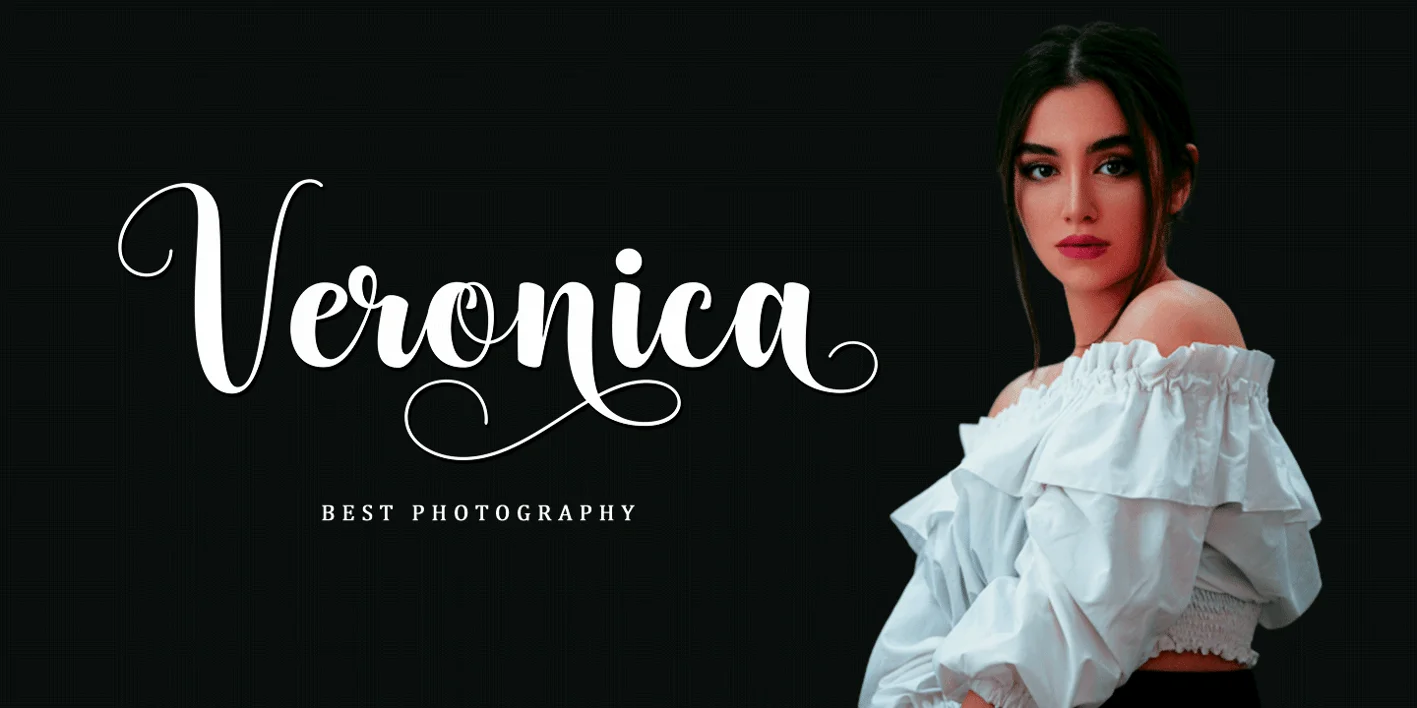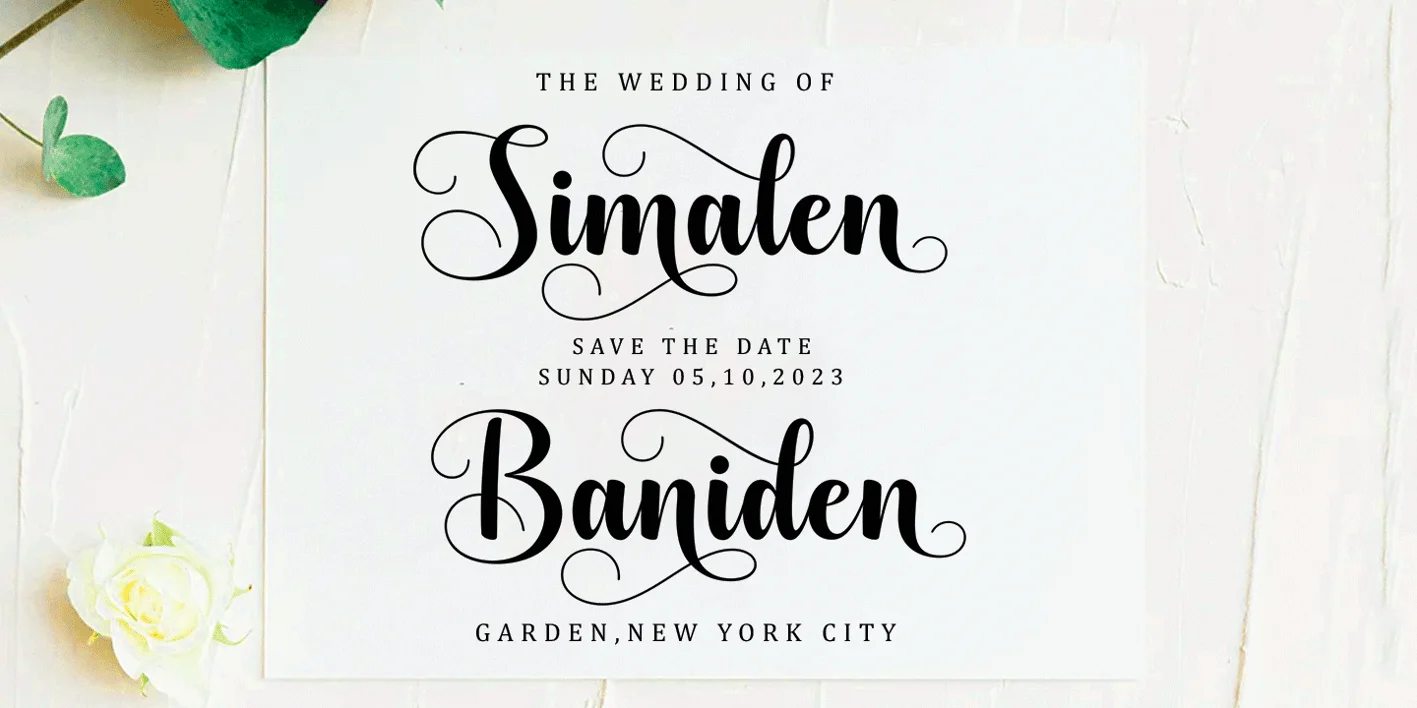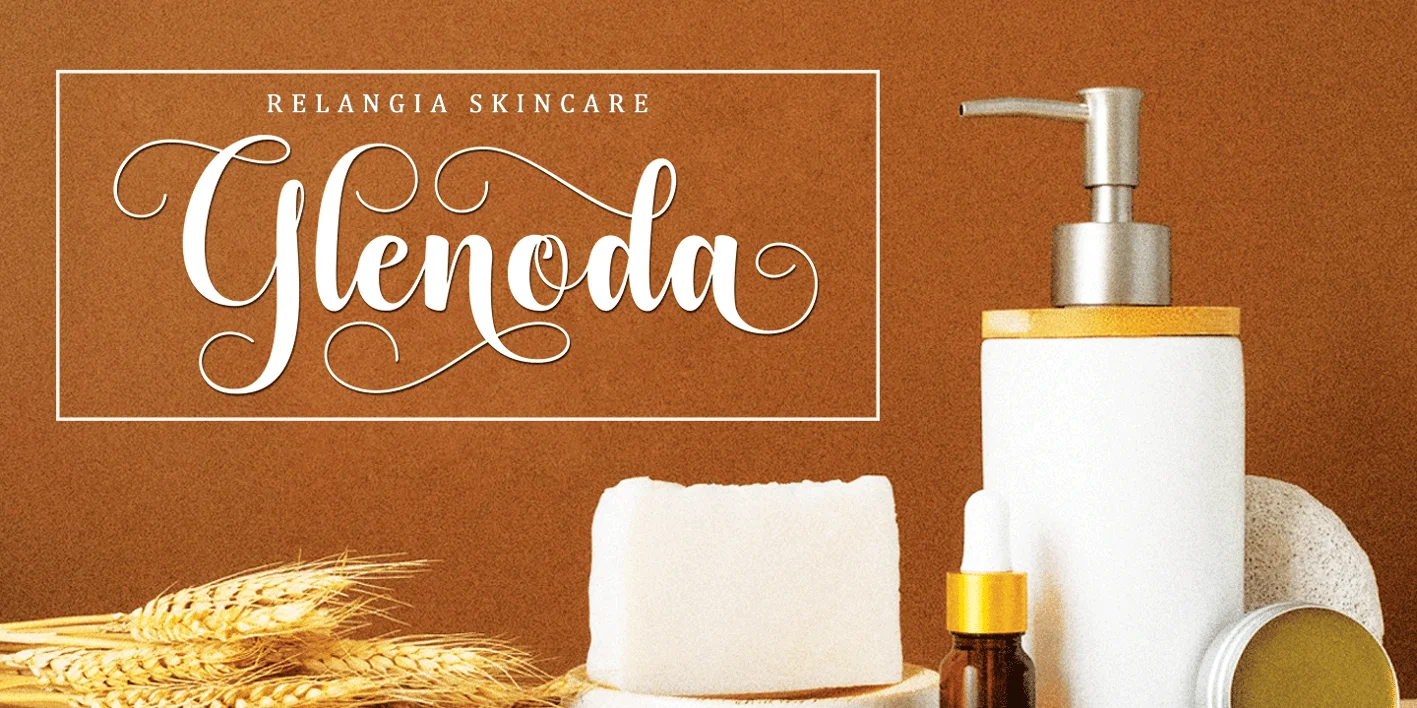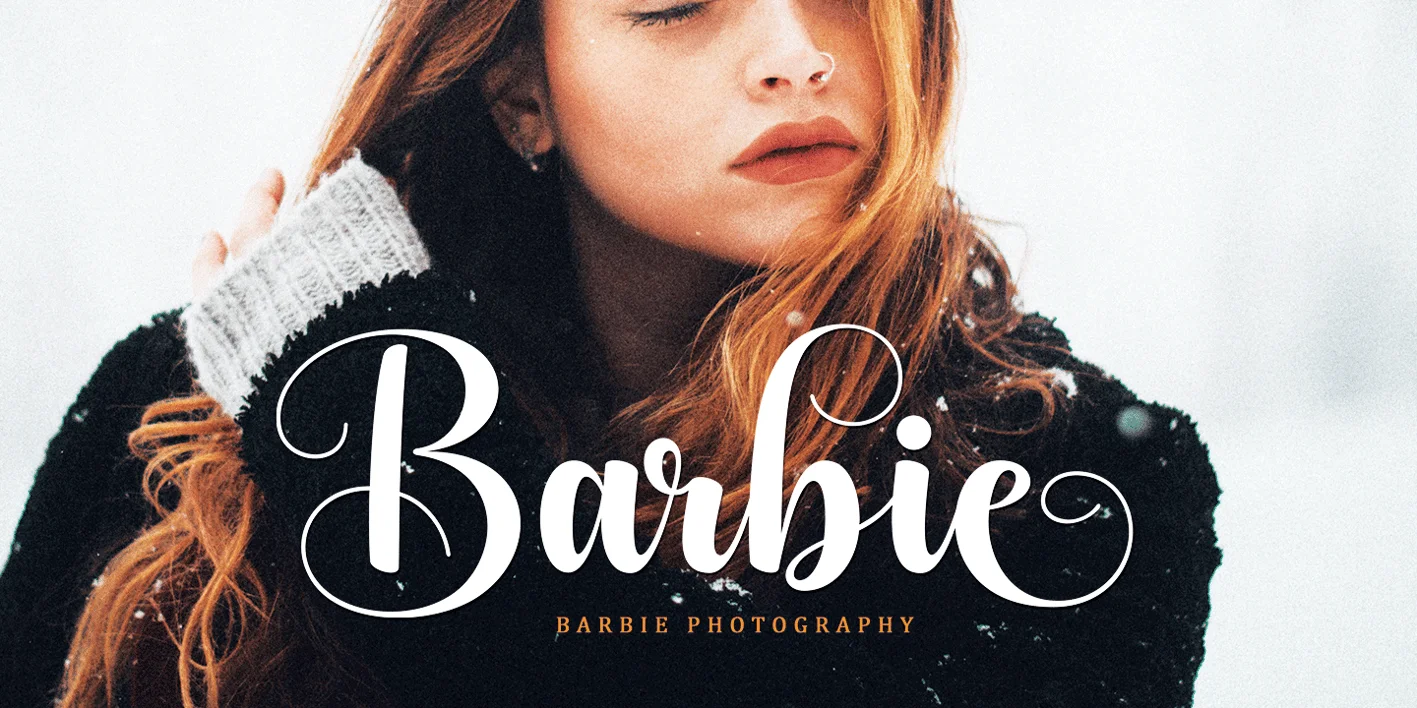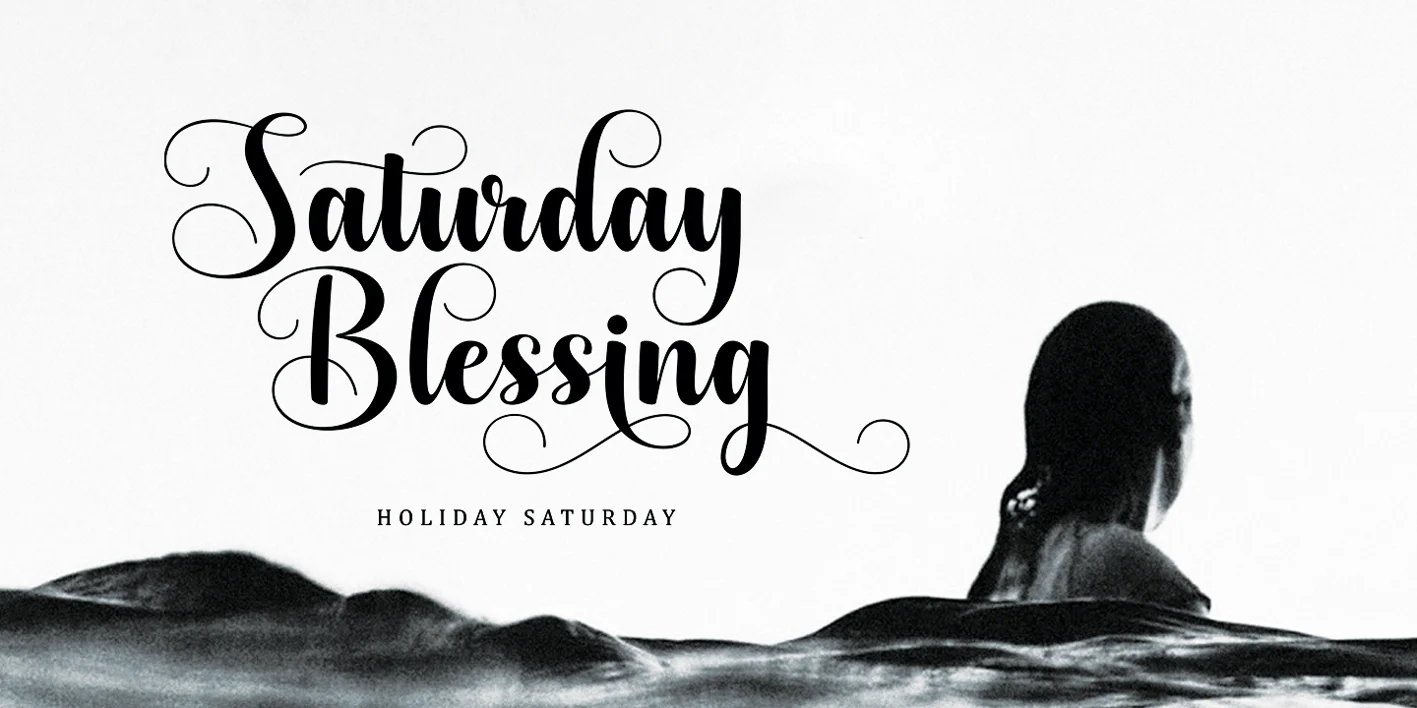
Best Specialist Font
A good typeface communicates tone before a single word is read. Best Specialist achieves this through visual harmony and precise spacing. The typeface brings a versatile sensibility to a broad range of creative disciplines, with the kind of restraint that lets content lead that holds up whether the work is print-first or screen-first.
In practice, Best Specialist proves particularly effective for environmental graphics, poster creation, editorial layouts, social media graphics, logo design. Designers reaching for it find that the type decisions feel resolved rather than laboured — a useful quality when client timelines are tight.
The proportions balance x-height, cap height, and ascender length to produce a face that reads confidently at body copy sizes without losing presence at display scale. Sidebearings were derived from visual rhythm testing rather than mathematical calculation alone.
The range of applications extends to annual reports, brand identity systems, signage systems, advertising campaigns. That breadth is deliberate: the proportions and spacing were stress-tested across a wide range of mock briefs before the typeface was finalised.
Best Specialist sits comfortably alongside both classic and contemporary typefaces in multi-font hierarchies. It takes direction rather than competing for attention — a quality that experienced designers know is harder to find than it appears.
UX designers establishing typographic systems for digital products find Best Specialist a reliable choice for projects that demand both personality and restraint. The design avoids the self-conscious quirkiness that dates quickly, settling instead for considered distinctiveness that holds up over time.